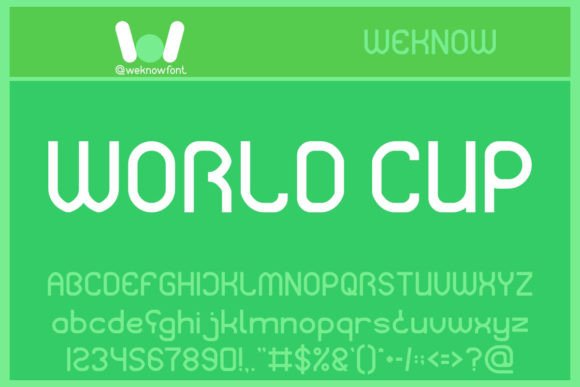
Introduce the World Cup font, a captivating display font that ignites a fiery passion for sportsmanship within your designs. As a product of weknow's creative genius, World Cup is a bold, modern, and visually stunning font perfect for making a statement in your projects.
Fuel your creative ambitions with World Cup's remarkable versatility. This font is a true champion, gracefully adapting to various designs, from eye-catching posters and captivating headlines to dynamic social media graphics and immersive presentations. Unleash your imagination and let World Cup elevate your designs to the top of the leader board.
Immerse yourself in the exhilarating experience of designing with World Cup. Its unique and dynamic letterforms ignite a fiery passion, adding a touch of brilliance to your projects. Captivate your audience with its captivating curves and powerful strokes that ignite a sense of excitement and thrill. Let World Cup be your secret weapon for creating designs that leave a lasting impression.
Don't settle for ordinary fonts. Embrace World Cup and witness the transformation of your designs into masterpieces. Its remarkable versatility and captivating aesthetics make it the perfect choice for designers seeking to leave an unforgettable mark. Join the winning team and experience the magic of World Cup today!